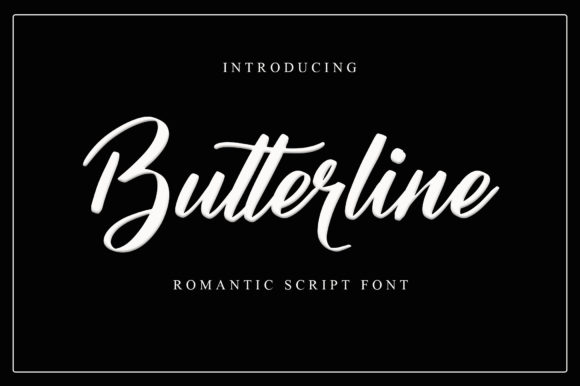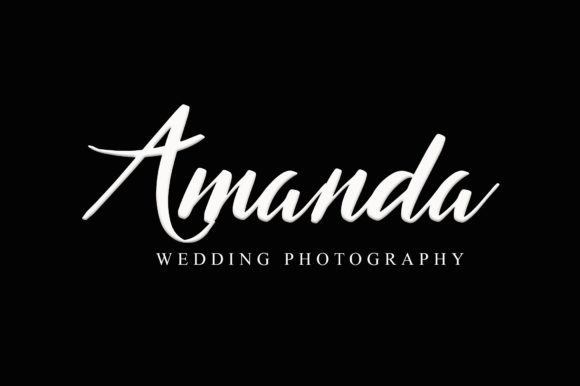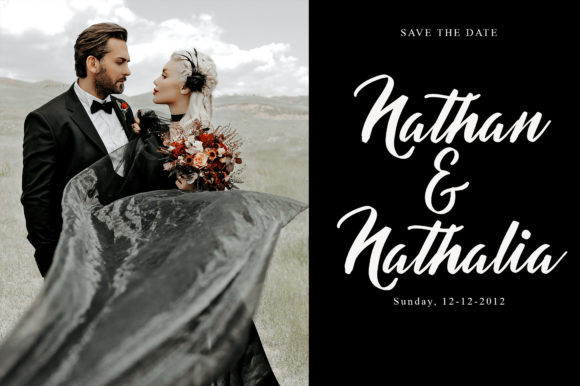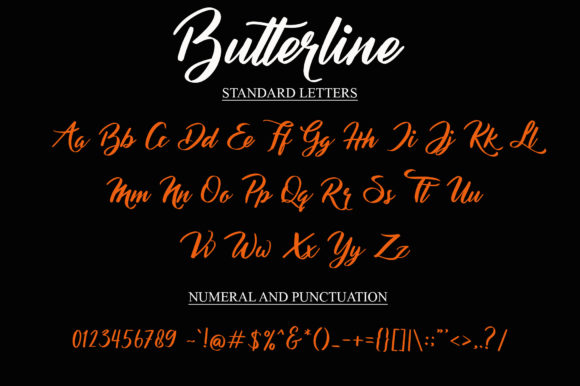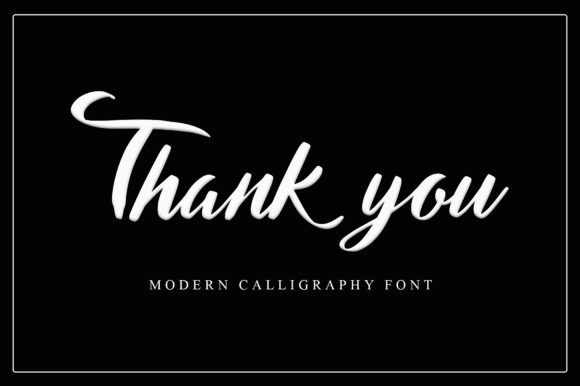
Butterline Font
Butterline is a chic and romantic script font that features flowing characters and additional heart swashes. This font is PUA encoded which means you can access all of the glyphs and swashes with ease